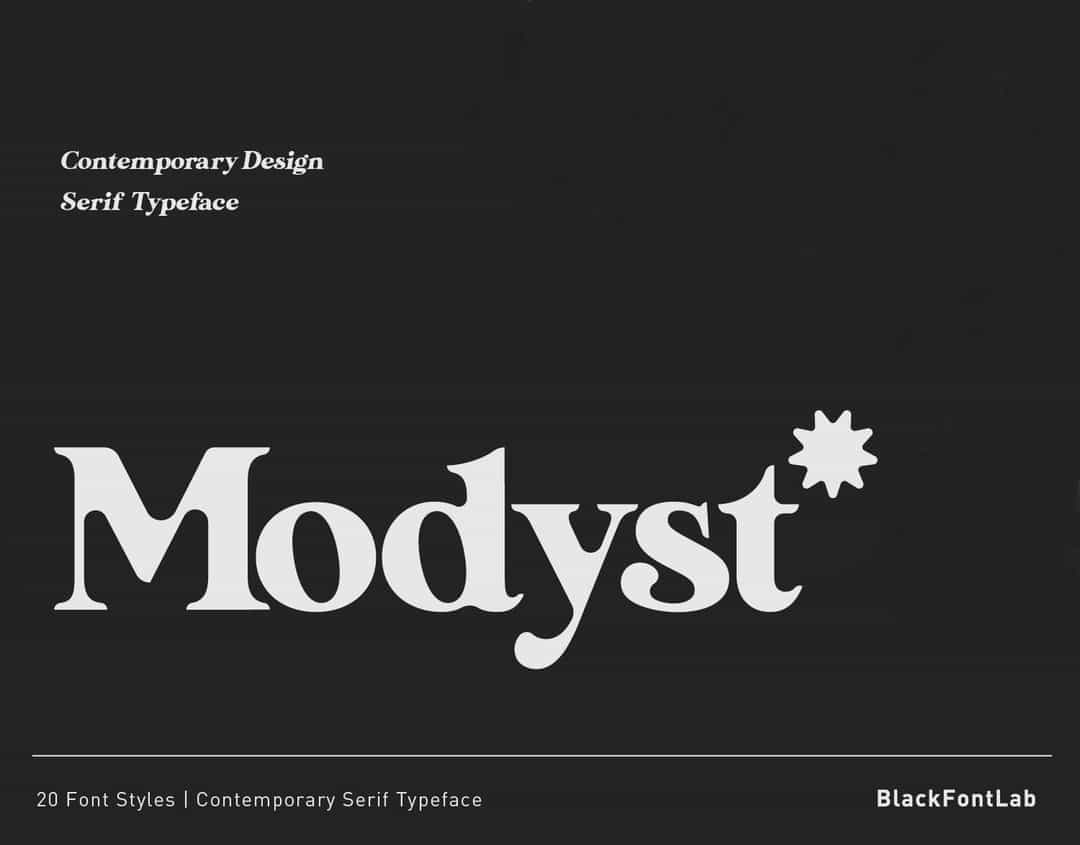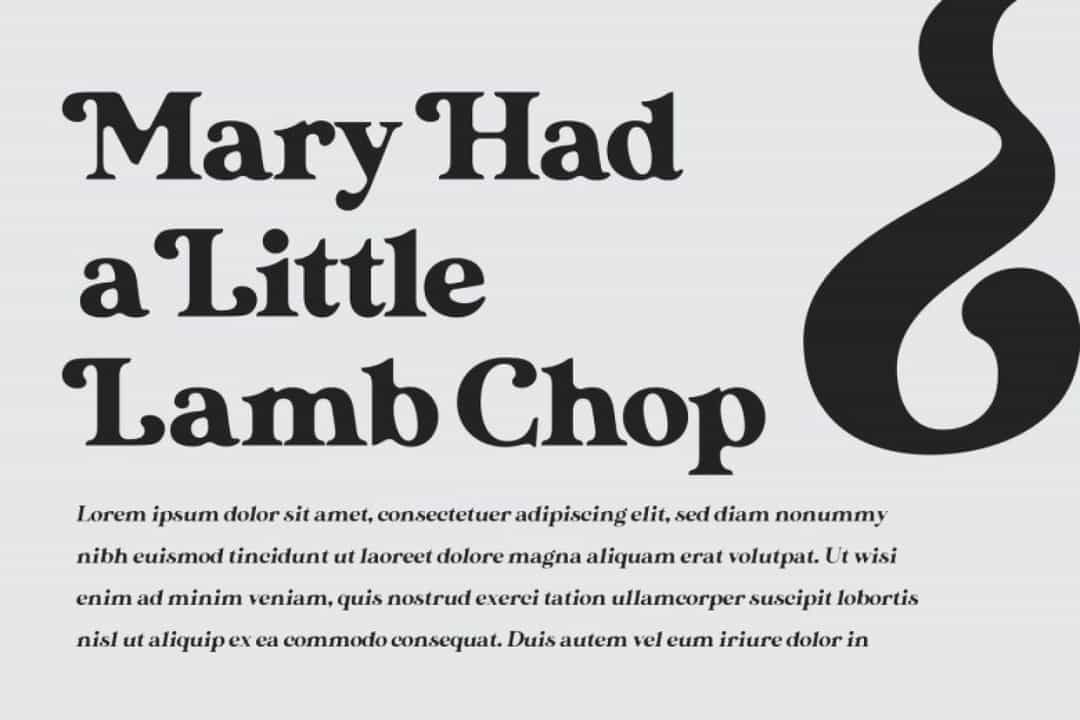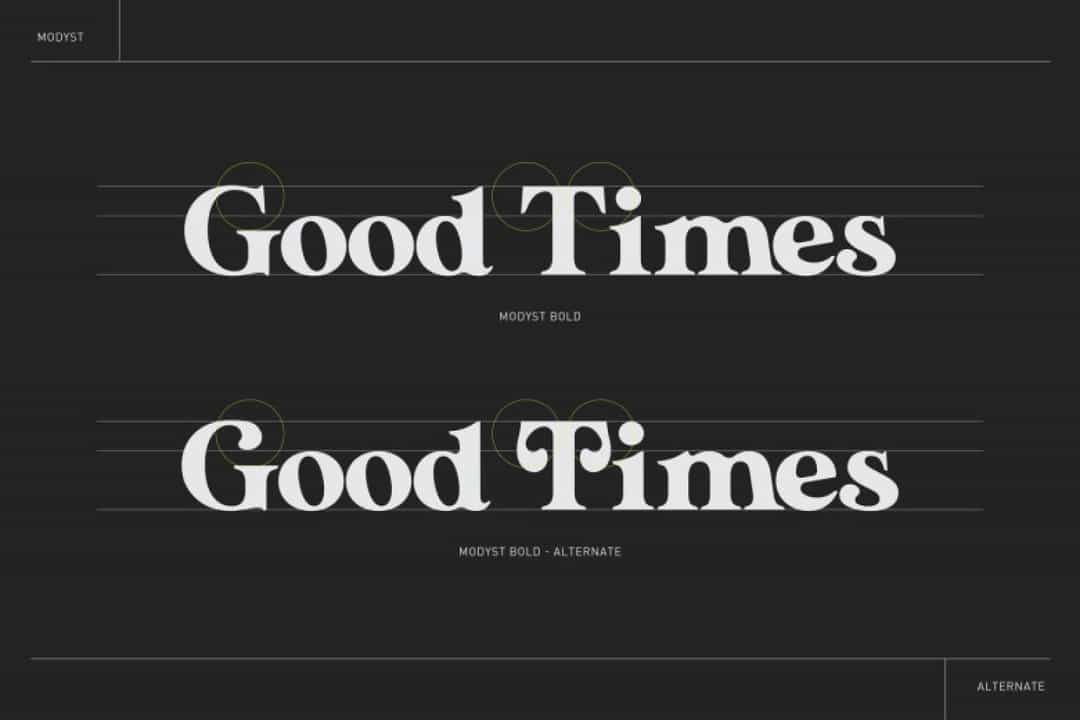
Modyst is a fun, playful font that is intended to help you find the fun back in your work and create a project and something unique and interesting. This typeface is a contemporary serif typeface that has a very slight roundness on almost all of the strokes on all the characters.